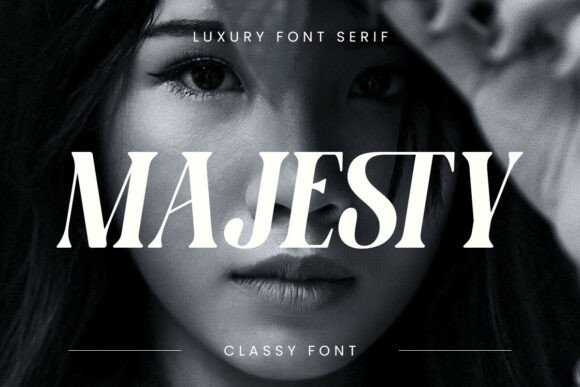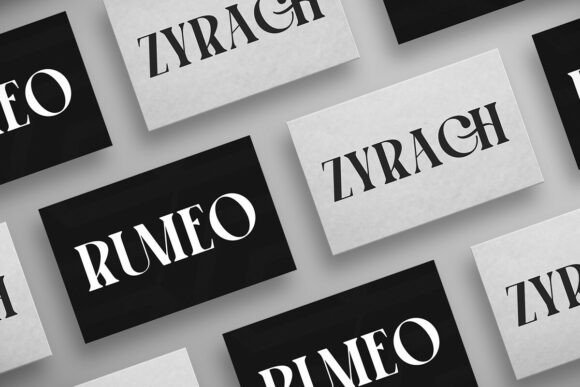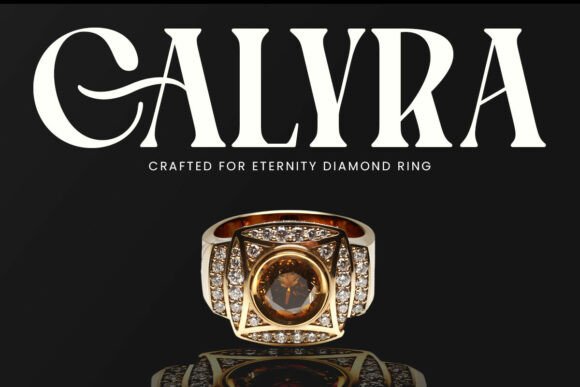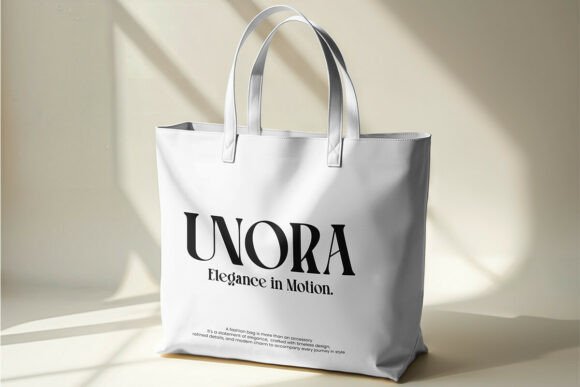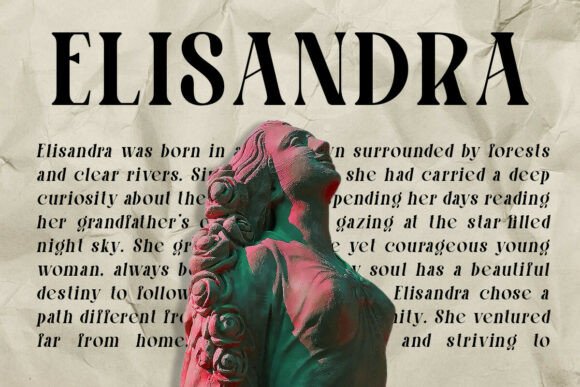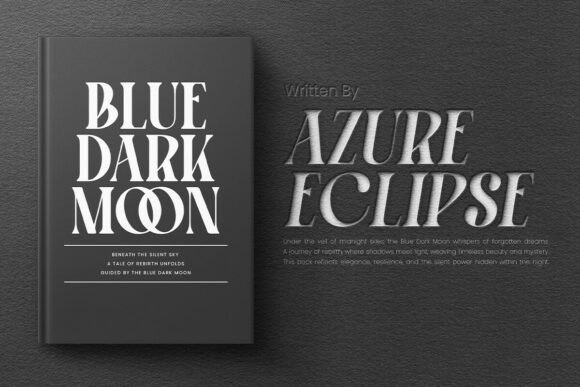
Introduction to Lux Moon Font
As a designer, you’ve been there – staring at a blank canvas, trying to bring your creative vision to life. But sometimes, the right tool can make all the difference. For those moments when you need to elevate your design and leave a lasting impression, look no further than the Lux Moon Font.
This stunning modern condensed serif font is more than just a design resource – it’s a key to unlocking sophistication and impact in your creative project. With its refined proportions, balanced kerning, and smooth curves, Lux Moon Font delivers a powerful yet elegant visual impression that’s perfect for branding, editorial design, logos, and more. Whether you’re working on a high-end packaging design or a wedding invitation, this versatile font is sure to add a touch of luxury to your work.
Key Features of Lux Moon Font
- High-quality, elegant design perfect for creative projects and designs
- Unique, hand-drawn style with a touch of whimsy and romance, ideal for wedding invitations, greeting cards, and other special occasion designs
Honest Review: Lux Moon Font
I recently had the chance to work with the Lux Moon Font, and I must say it’s been a game-changer for my design projects. This beautiful font is a perfect addition to any creative project, offering a touch of elegance and sophistication.
- ✨ Elegant and sophisticated design
- ✨ Versatile and high-quality font
However, I did notice a few limitations. The font can be quite heavy on the eyes if used in large quantities, and some of the letters may require additional adjustments to fit certain design layouts.
Overall, I’m thoroughly impressed with the Lux Moon Font. It’s a fantastic design resource that can elevate any creative project. While it may have some limitations, its benefits far outweigh its drawbacks.
Tips for Getting the Most Out of Lux Moon Font
The Lux Moon Font is ideal for:
- Graphic design projects, such as logos, brochures, and business cards.
- Digital design projects, such as website headers, social media graphics, and presentations.
- Print design projects, such as posters, flyers, and invitations.